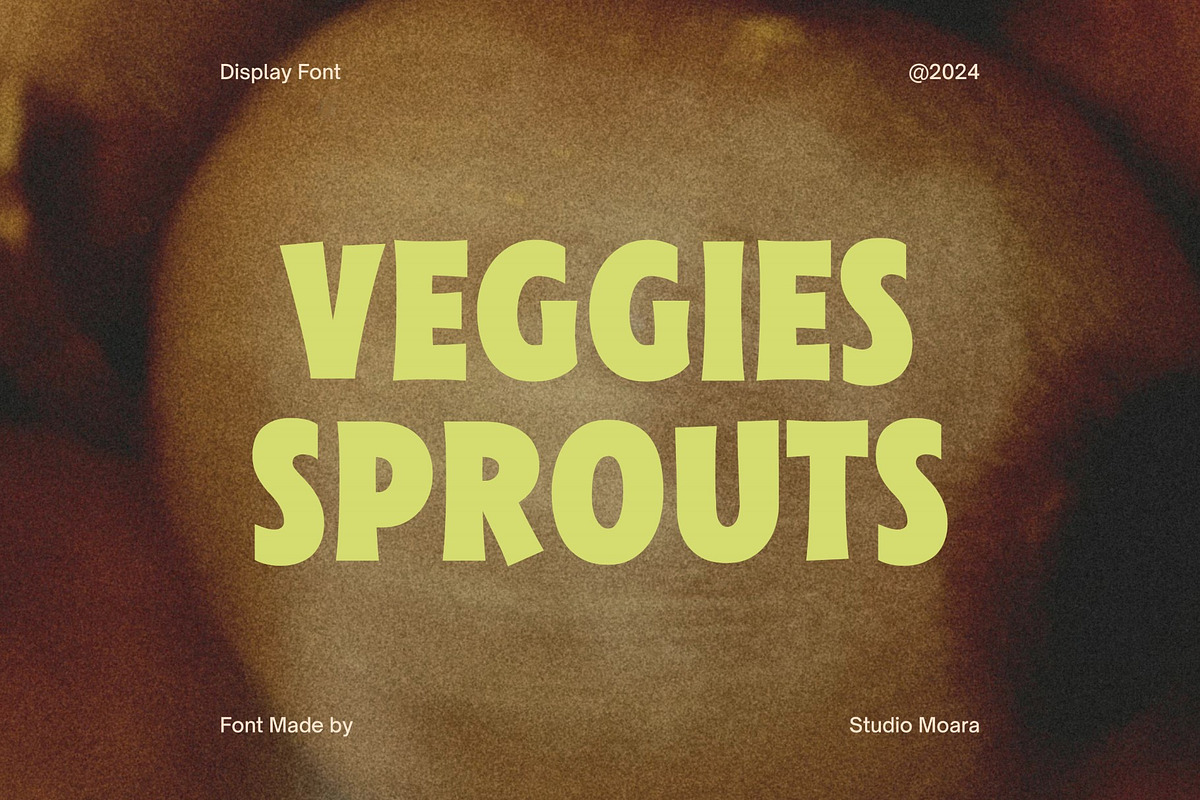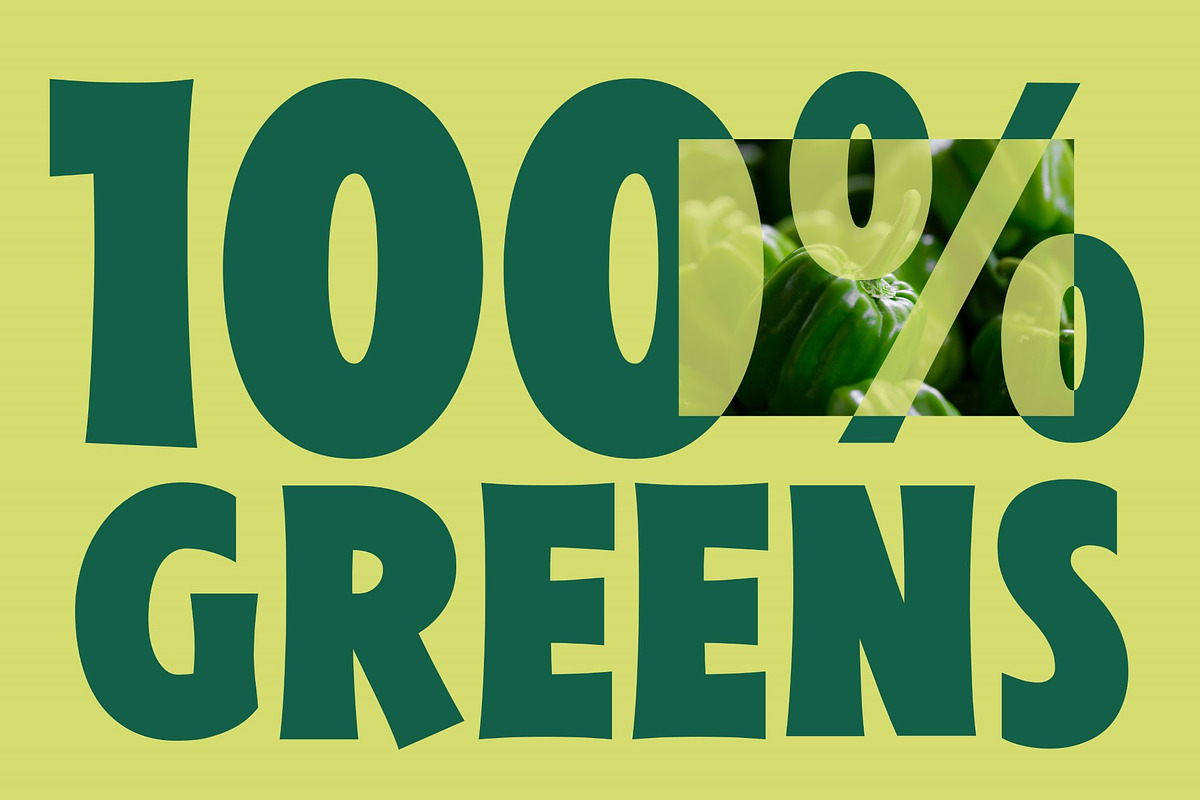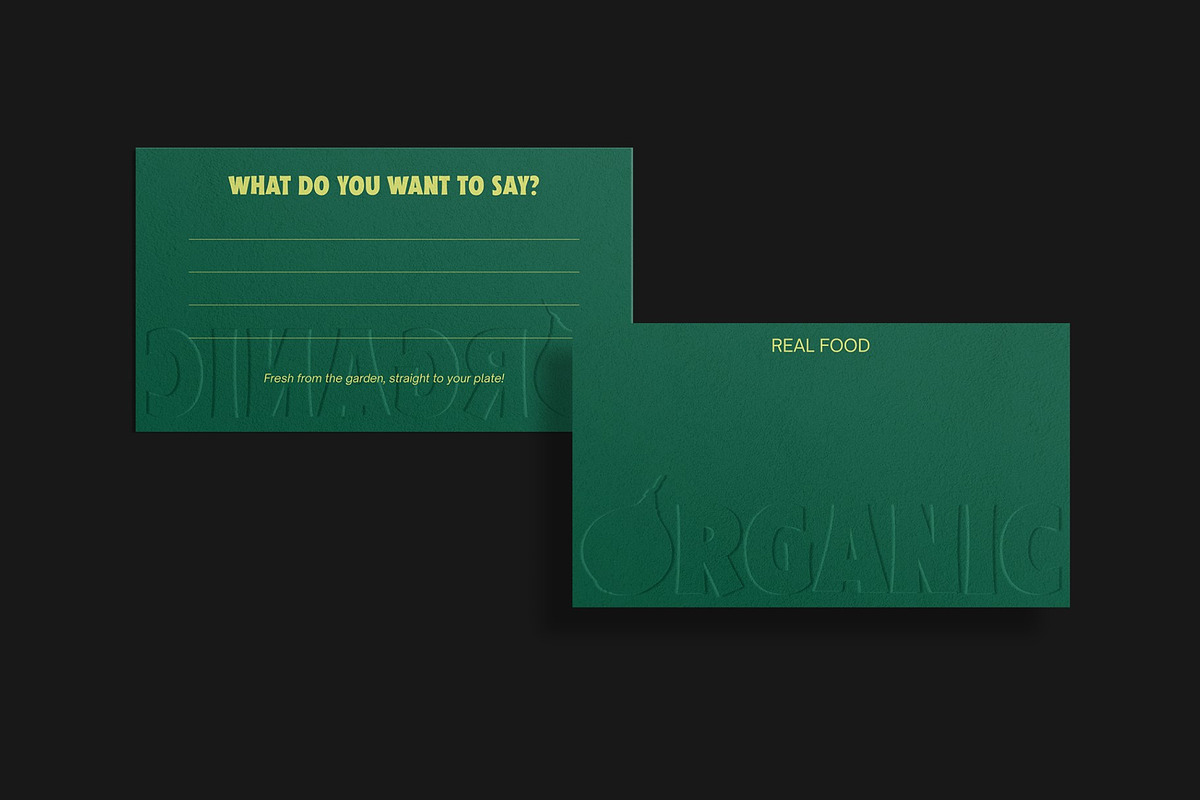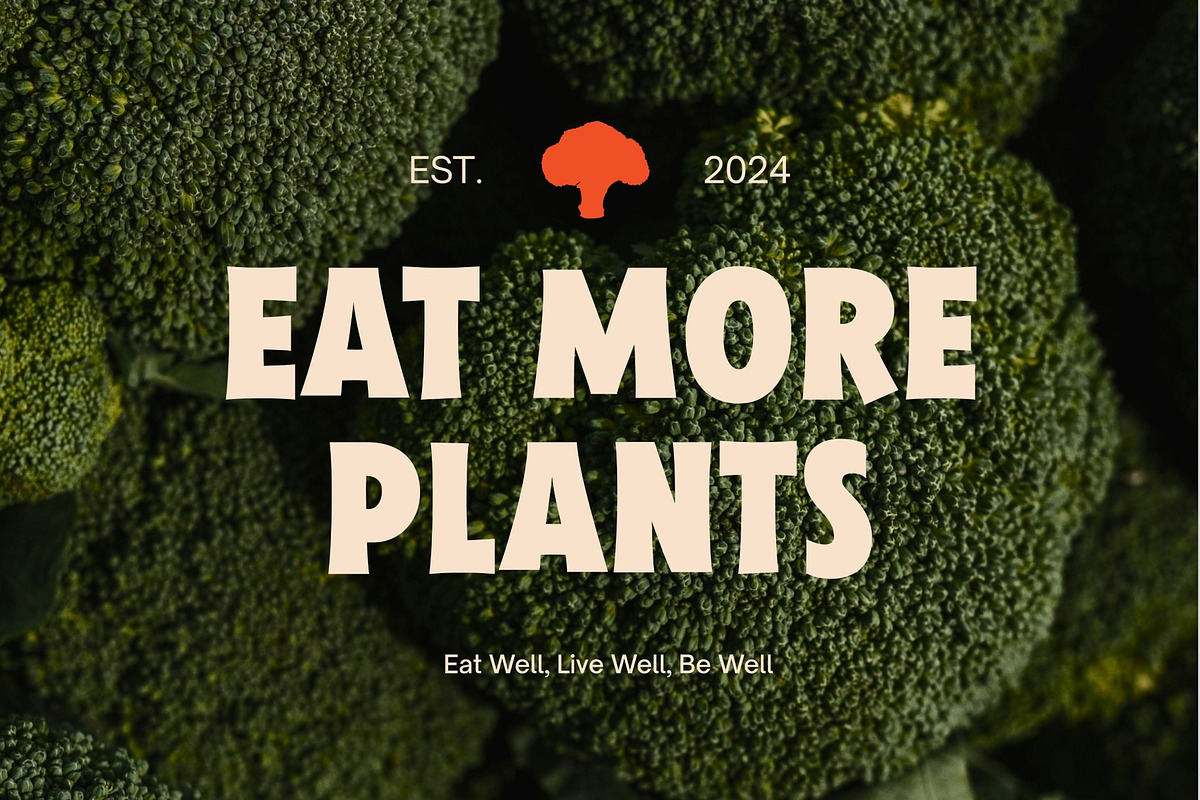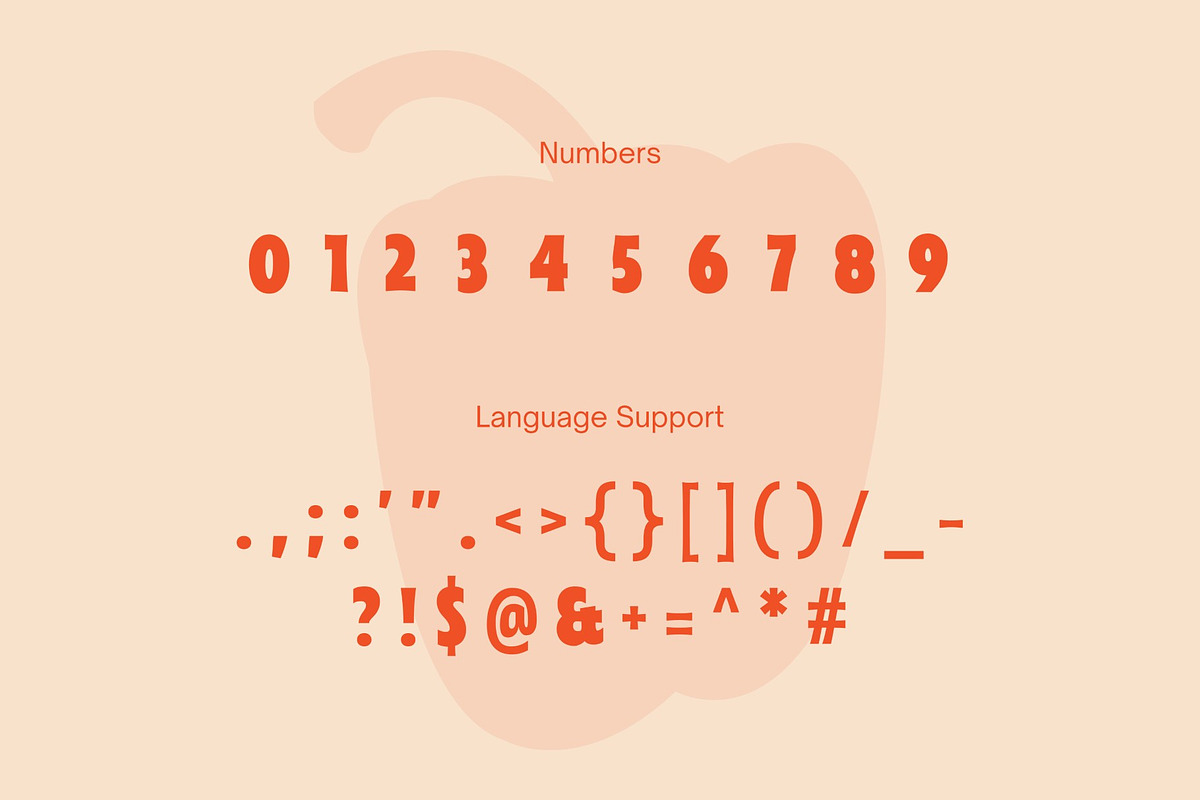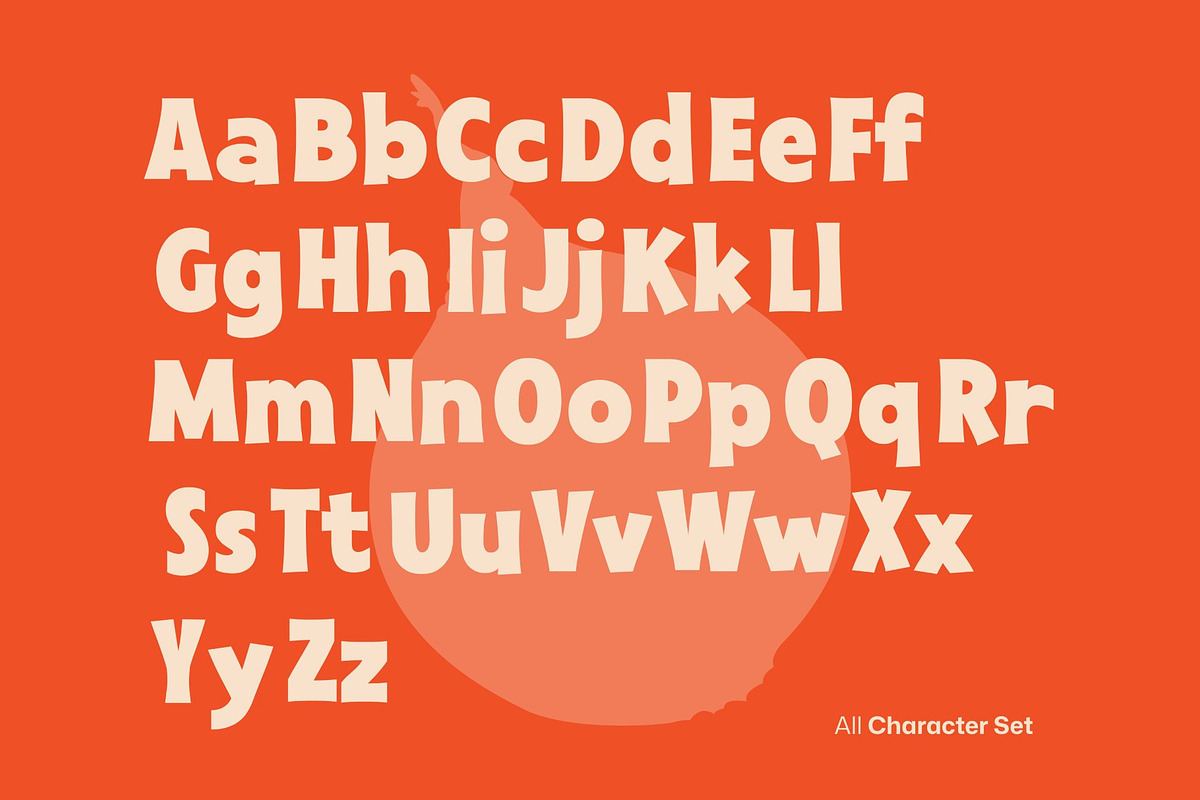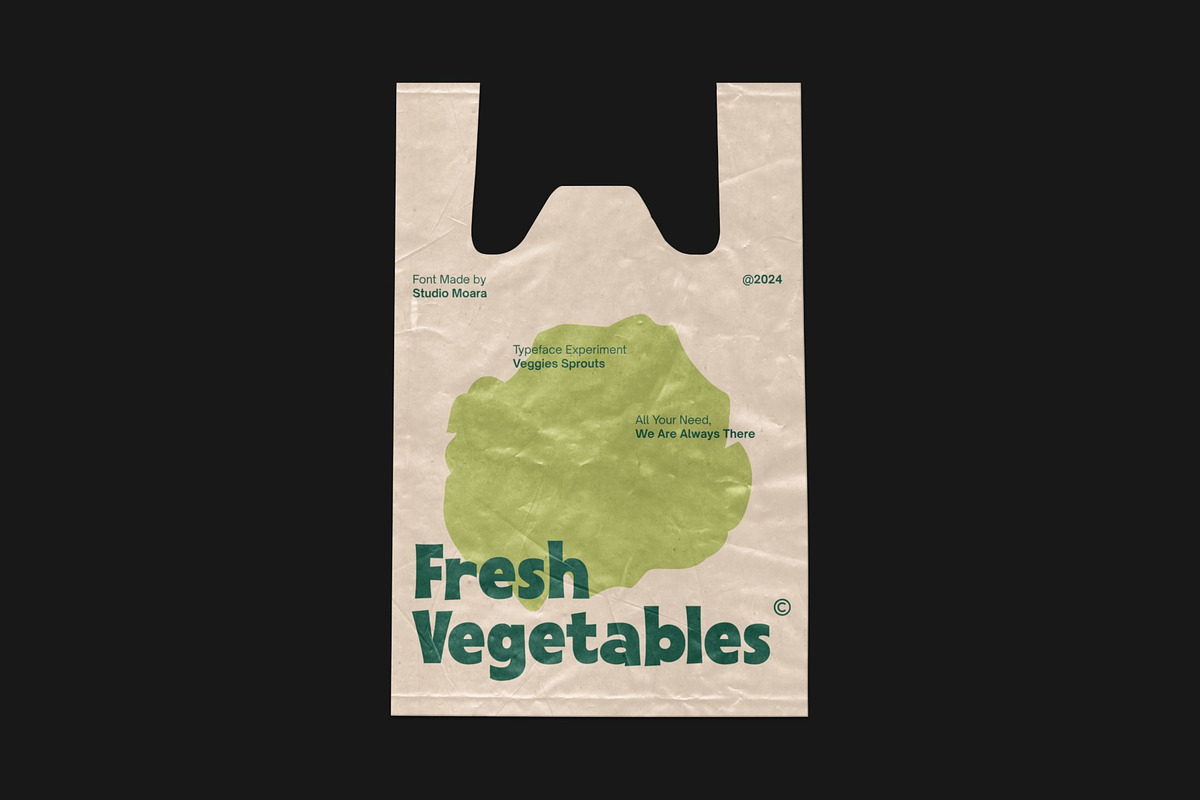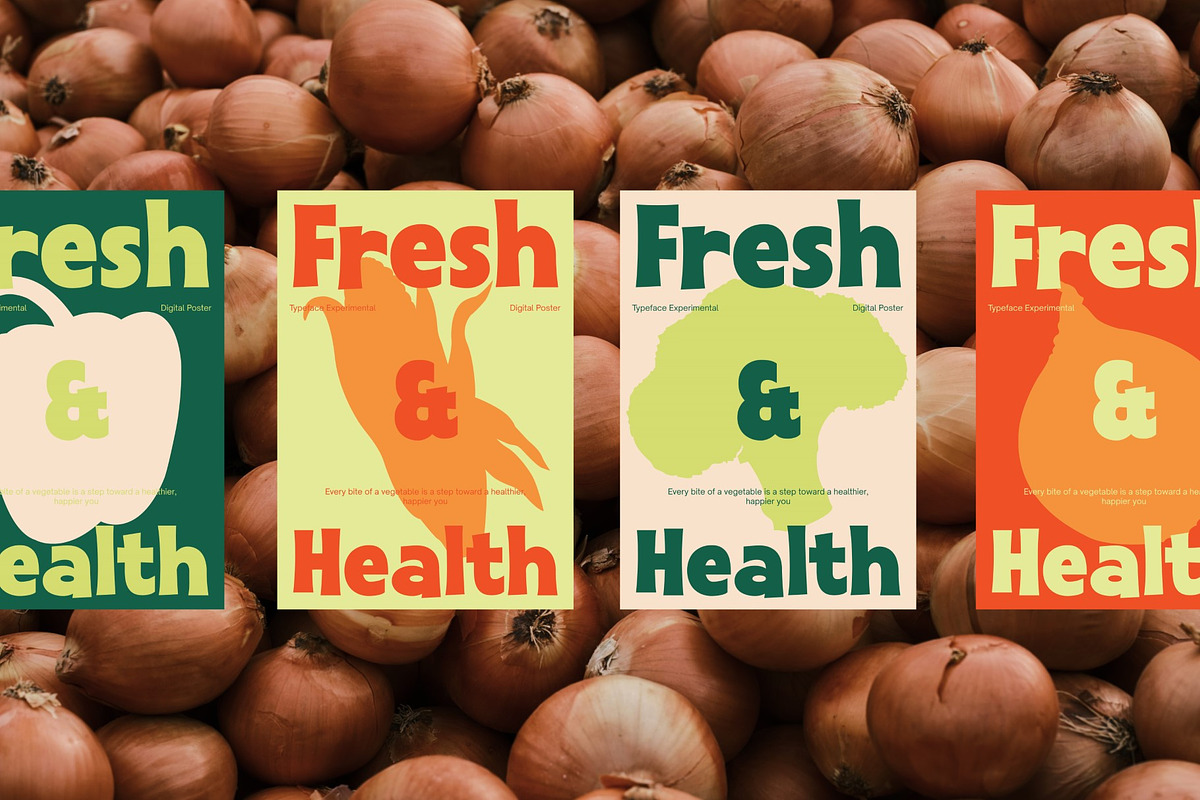
Veggies Sprouts - Playful Display Fo
Veggies Sprouts is a playful and charming display font that brings a fresh, organic feel to your designs. With its rounded, slightly irregular letterforms, it evokes a sense of natural growth and wholesome goodness. Perfect for food packaging, children's books, and branding projects that need a touch of lighthearted fun. Designed by Studio Moara.